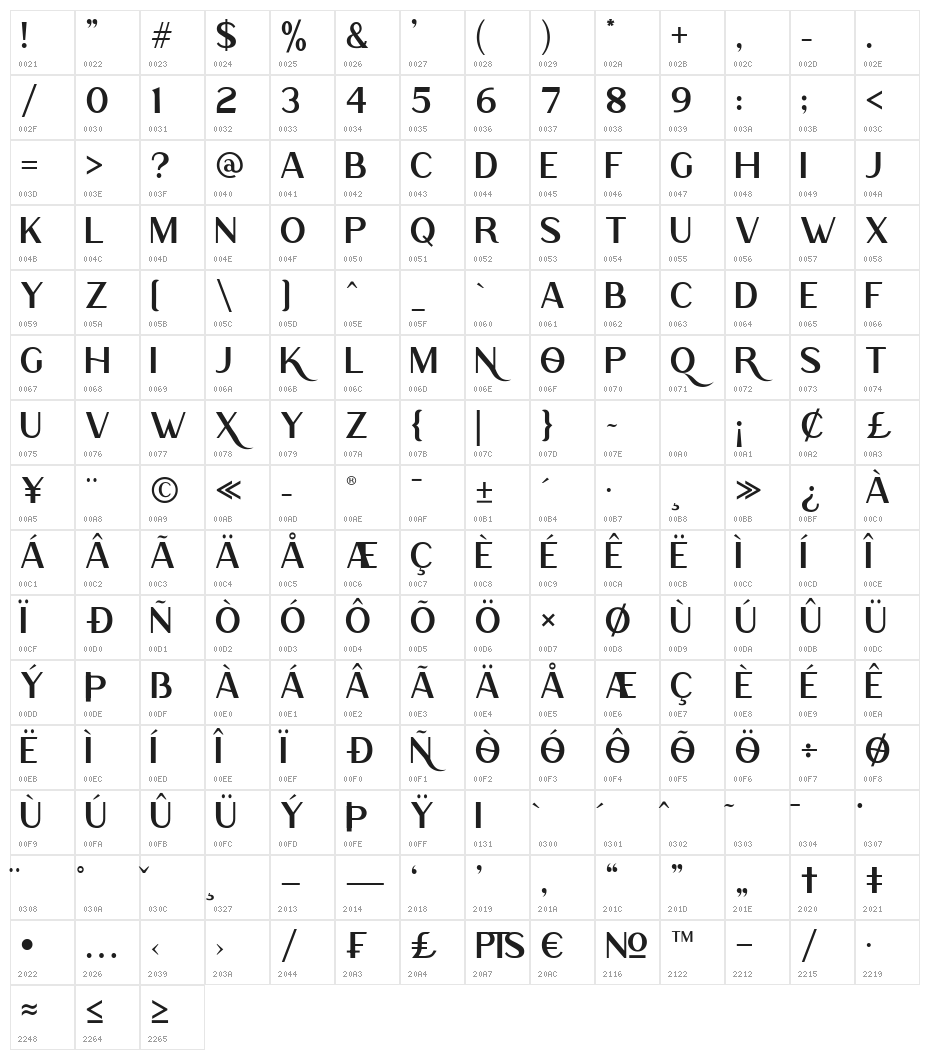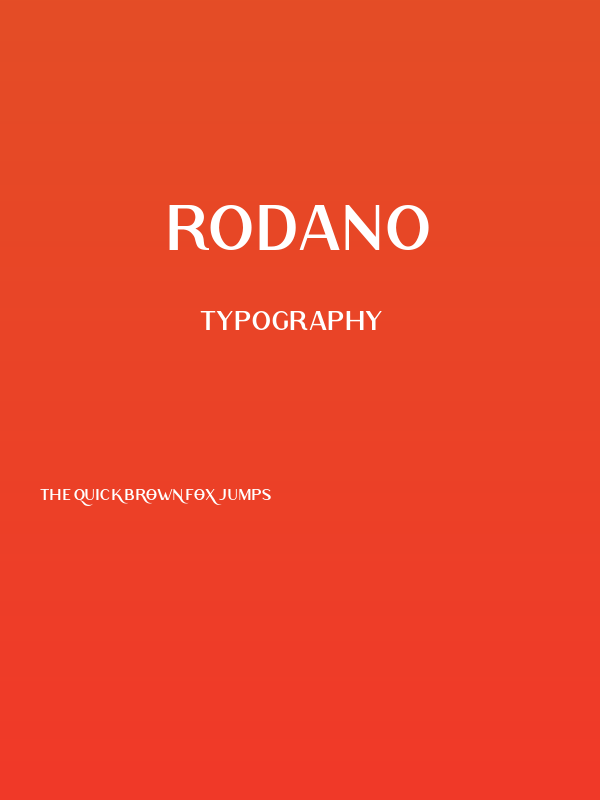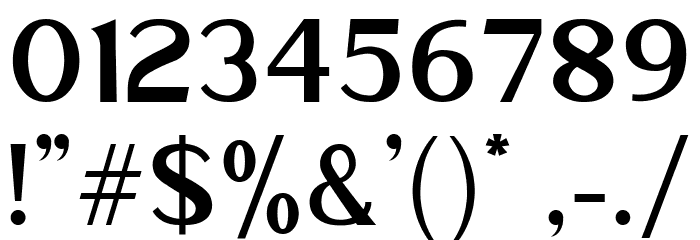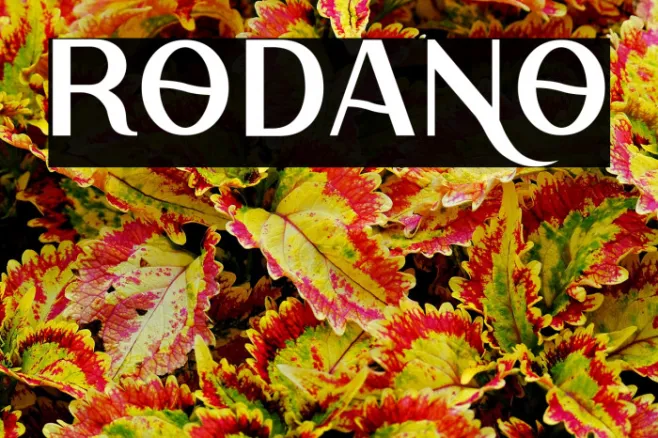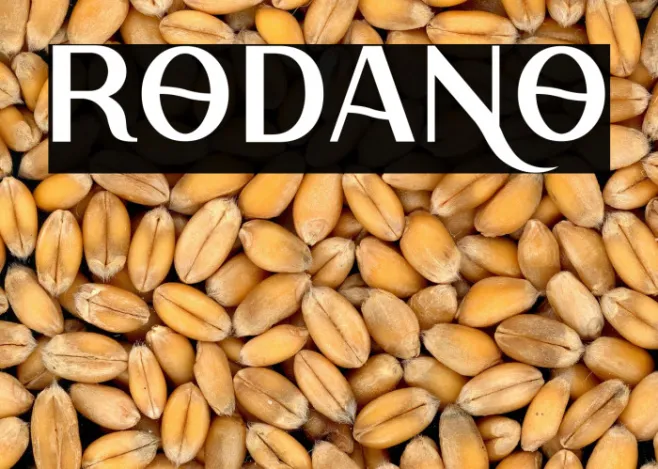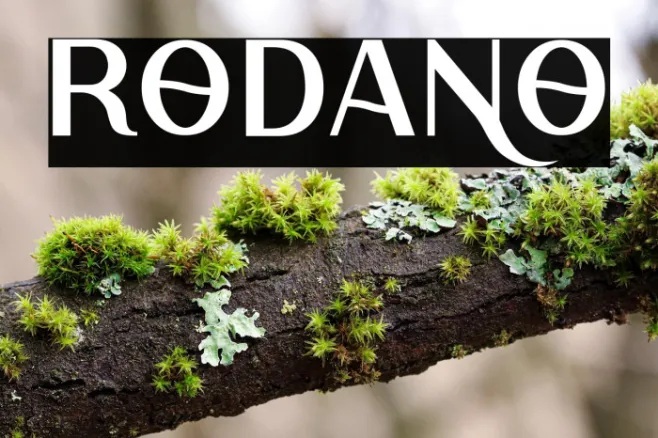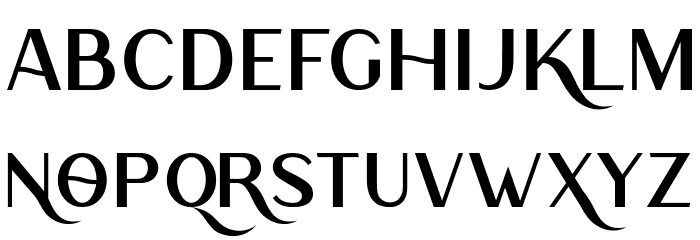
Rodano Font
Rodano Description
This font showcases a modern and elegant design with a distinctive flair. The uppercase letters are bold and feature unique, subtle curves that add a touch of sophistication. The lowercase letters maintain a consistent style, with smooth transitions and a balanced appearance. The numerals are clear and easy to read, complementing the overall aesthetic. Special characters are thoughtfully designed, maintaining the font's cohesive look. This font's versatility makes it suitable for various applications, from branding to editorial design.